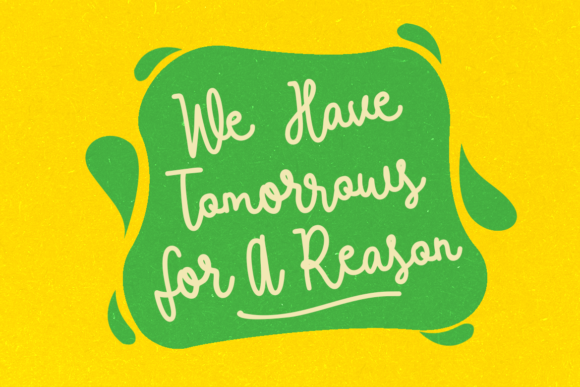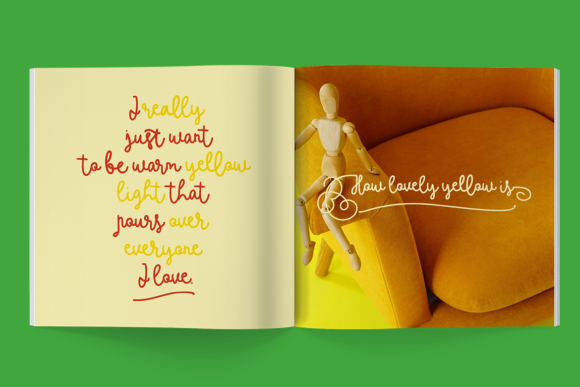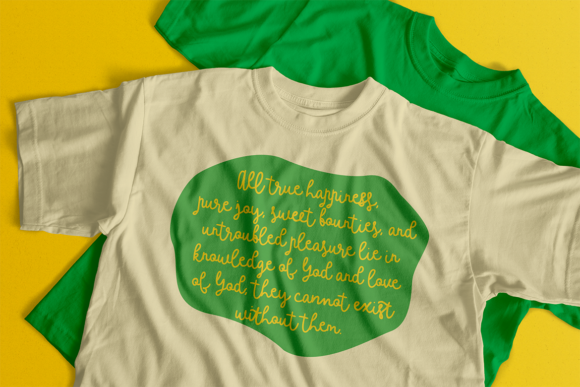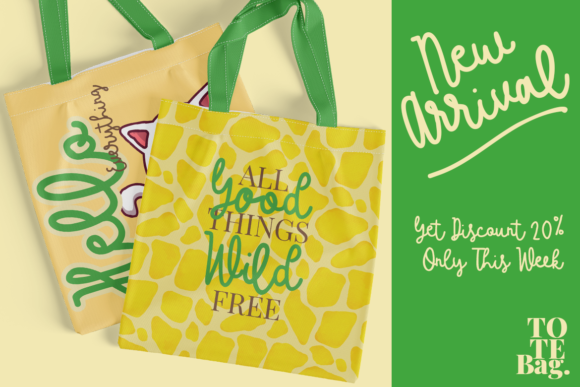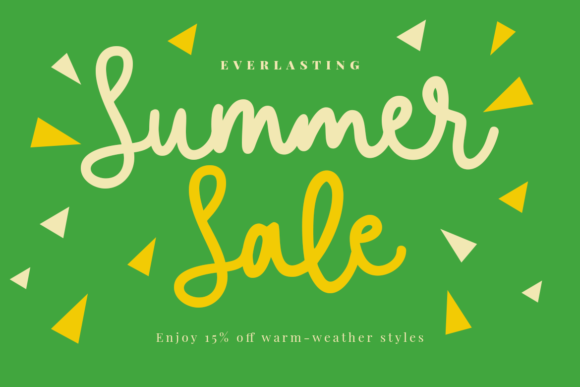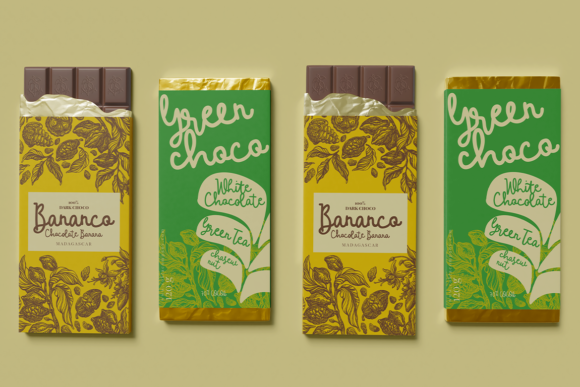
Discover the Delicate Charm of Betterina Script Font
Have you ever found yourself staring at a blank page, trying to conjure up the perfect font to bring your design to life? The blank slate can be intimidating, but sometimes all it takes is one font to spark inspiration. For designers, the search for that perfect font can be a daunting task, but with the right tool, the creative process can flow effortlessly.
Enter Betterina Script Font, a beautiful and delicate script font that exudes elegance and class. Crafted with love and precision, this font is perfect for those who need a touch of sophistication in their designs. Whether you’re creating a wedding invitation, a branding logo, or a heartfelt greeting card, Betterina Script Font is the perfect choice to add a personal touch.
With Betterina Script Font, designers can breathe new life into their projects and create something truly special. Its unique charm and character make it a valuable asset for any design portfolio, and its versatility ensures that it will never go out of style.
- Unique Characteristics: Elegant, cursive script font with a modern twist, perfect for creative and artistic designs
- Font Style: Script, cursive, handwritten
Designer Review: Betterina Script Font
As a designer, I’ve had the chance to play around with the Betterina Script Font, and I must say it’s a mixed bag. ✨ On the positive side, I love the elegant and sophisticated feel it brings to any project. The curves are smooth, and the overall aesthetic is truly beautiful. It’s perfect for adding a touch of luxury and class to your designs.
Another thing that works well is the versatility of the font. It comes in a range of weights and styles, making it easy to use in various contexts, from headlines to body text. The font also supports a wide range of languages, which is a definite plus for designers working on international projects.
- ⚠️ Limited character set: While the font supports a wide range of languages, it’s not perfect. I noticed some missing characters and glyphs, which can be a problem for designers working on complex projects.
- ⚠️ Limited font pairing options: While the font itself is beautiful, it can be a bit challenging to pair it with other fonts without creating an inconsistent look.
Overall, I’d say the Betterina Script Font is a great addition to any designer’s toolkit, but it’s not without its limitations. With a bit of creativity and experimentation, it can be a powerful tool for creating stunning designs. Just be aware of its limitations and plan accordingly.
The Betterina Script Font is ideal for creating elegant and sophisticated designs, such as:
- Product packaging and labels
- Wedding and event signage